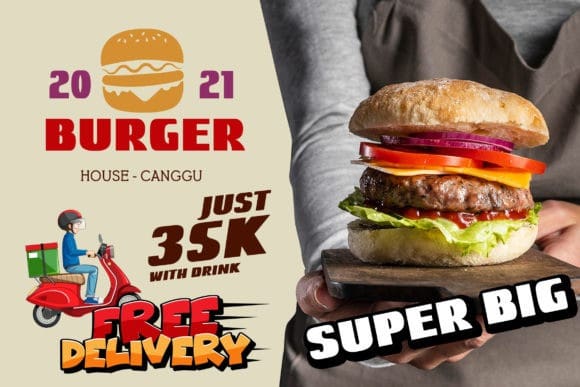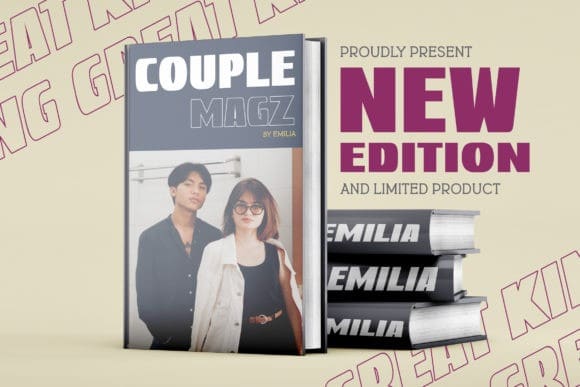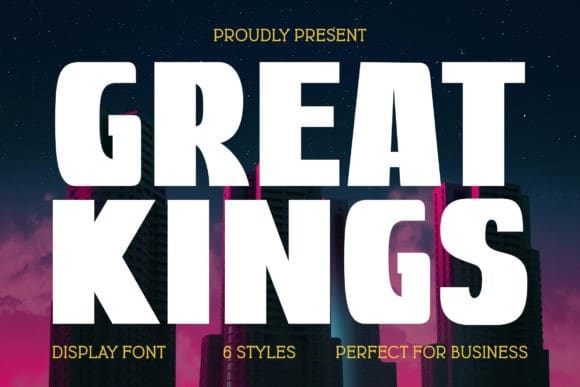
Great Kings Font
Great Kings Font is a cool, bold and thick lettered display font. This font is PUA encoded which means you can access all of the glyphs and swashes with ease!